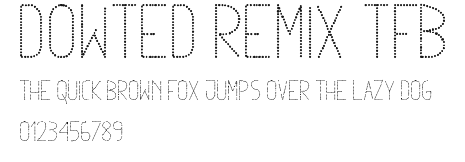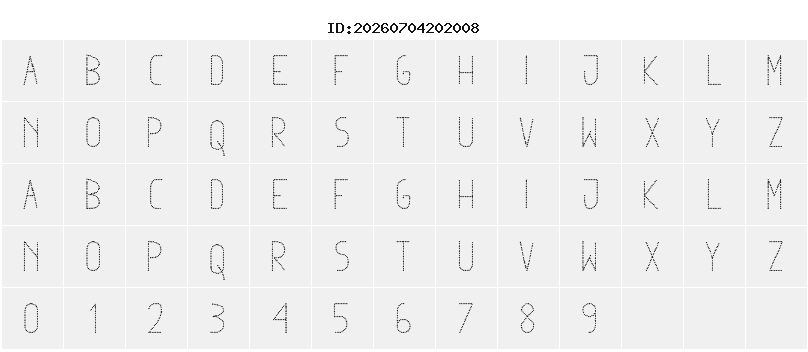
• Designer: kaiser zhar khan
About Dowted remix tfb.ttf
Dowted remix tfb.ttf is a modern, elegant sans-serif font designed for ultimate readability and visual harmony. Perfect for branding, headlines, web design, and print materials.